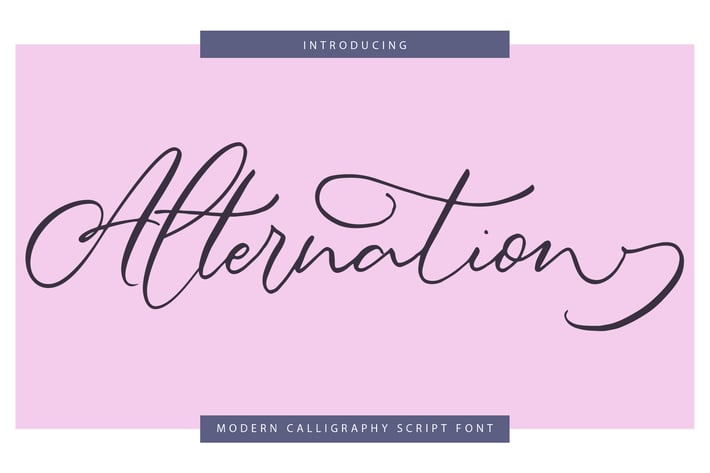
Alternation | Modern Calligraphy Script Font
Alternation | Modern Calligraphy Script Font with a calligraphy style, So beautiful on invitation like greeting cards, branding materials, business cards, quotes, posters, and more!